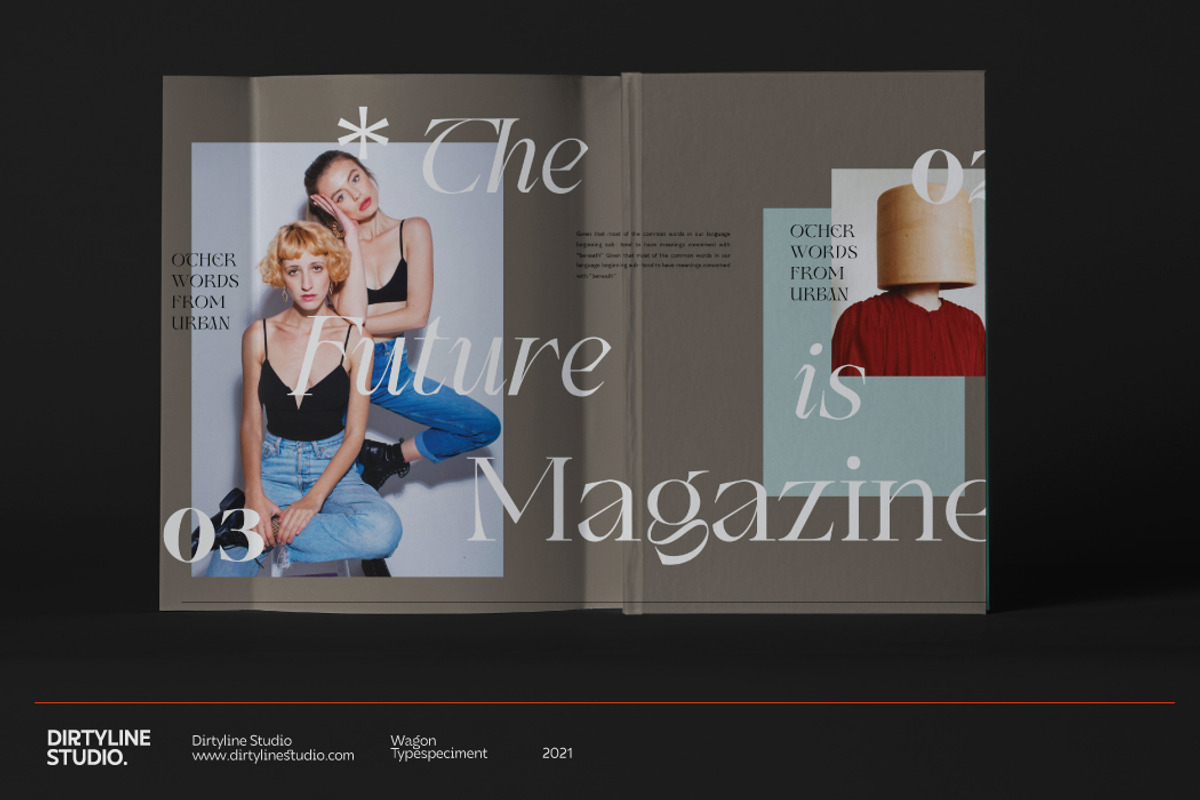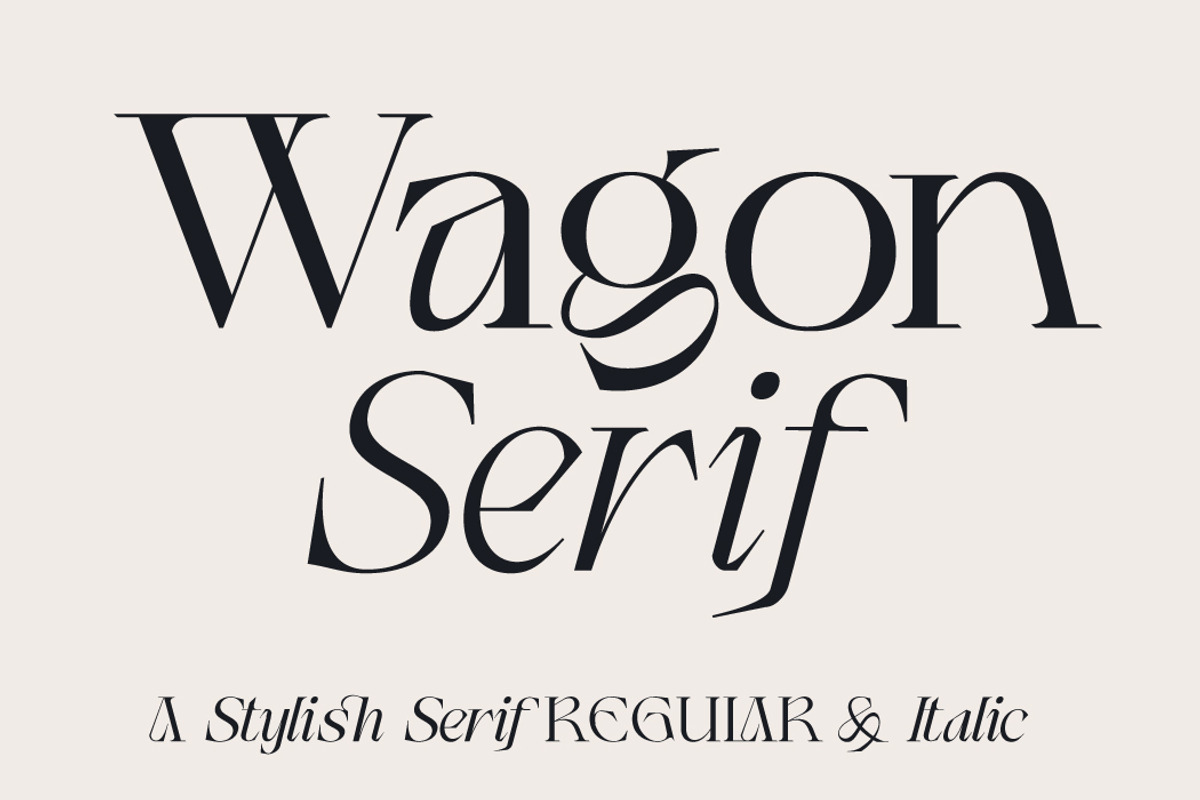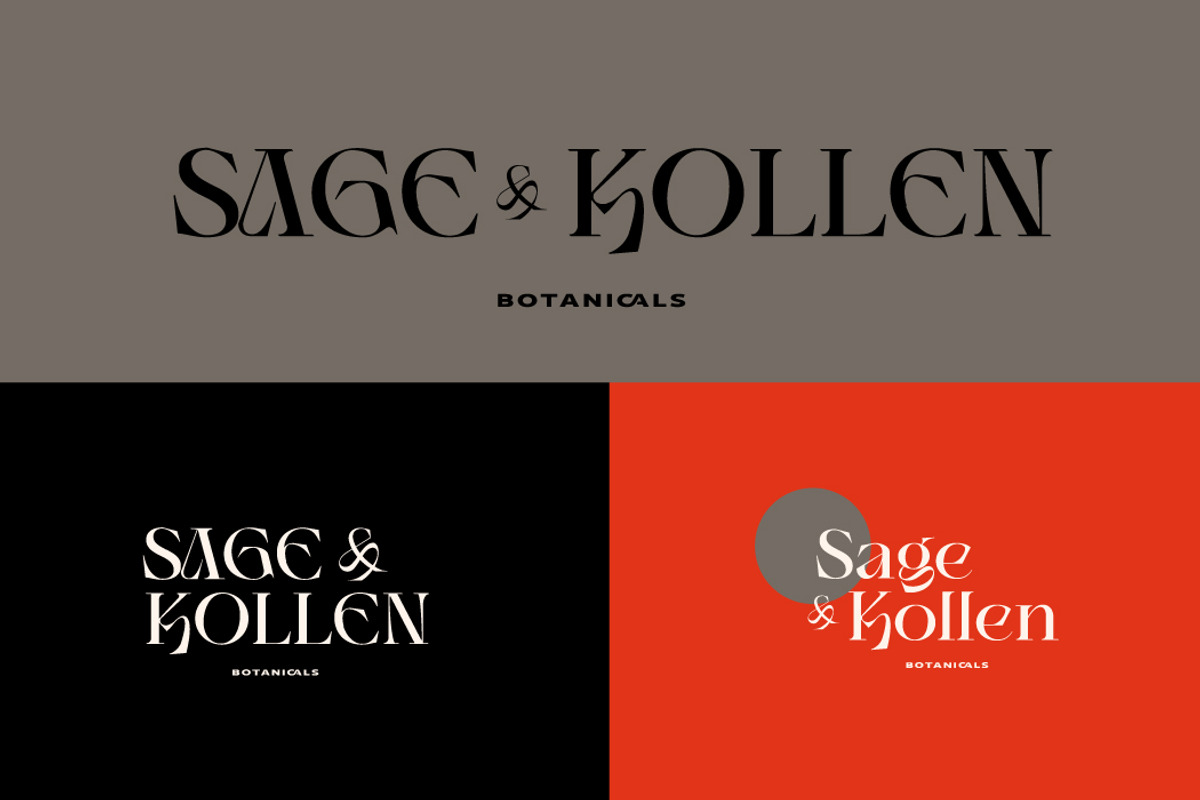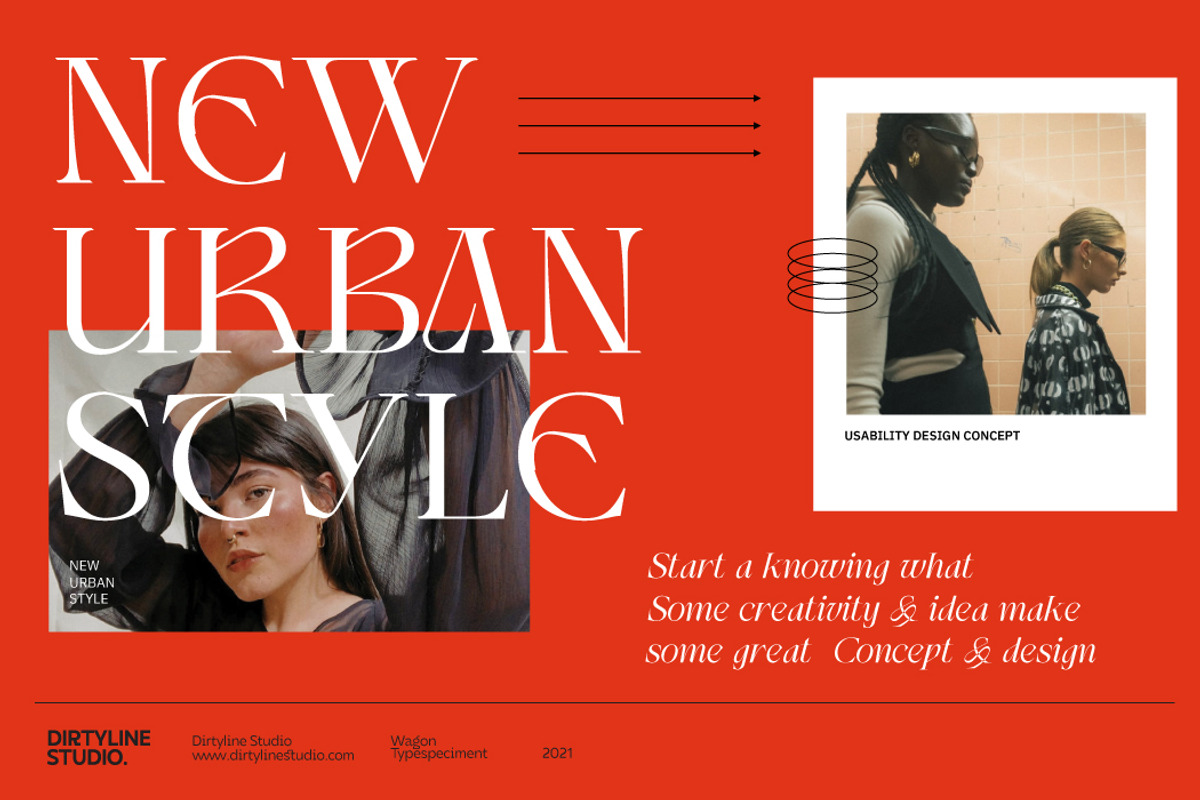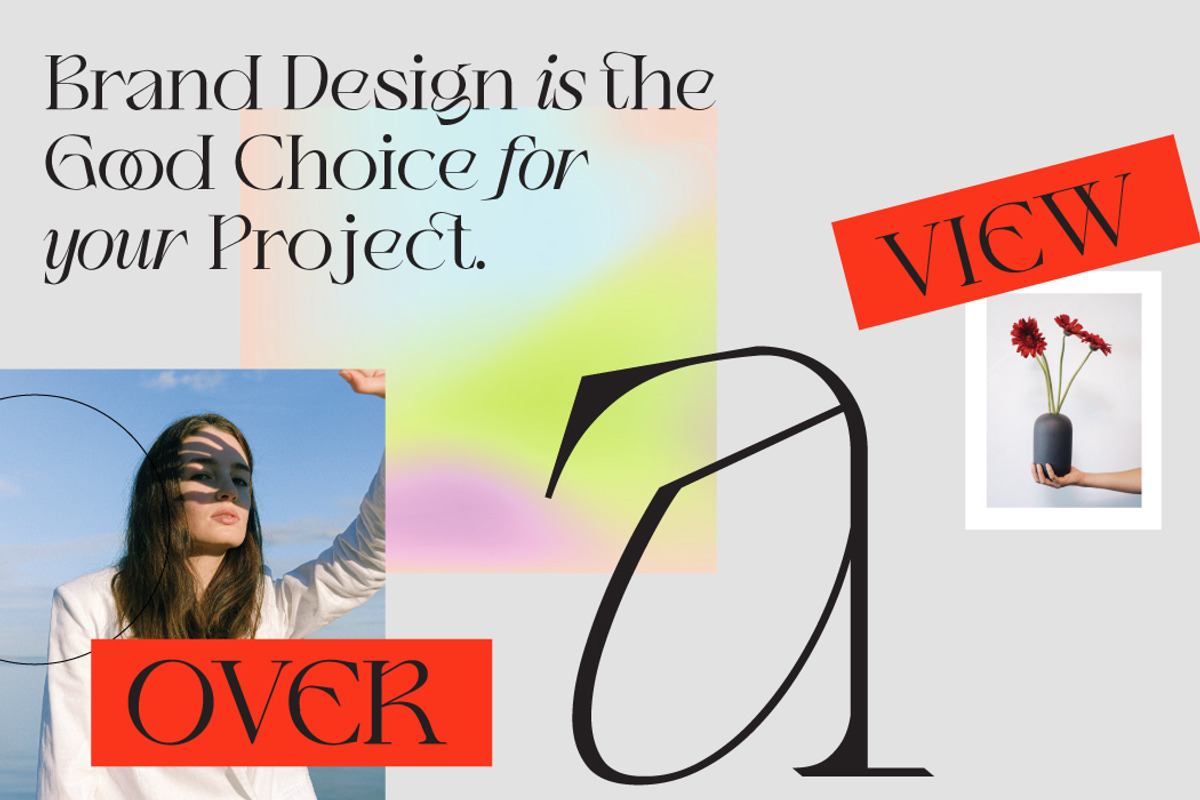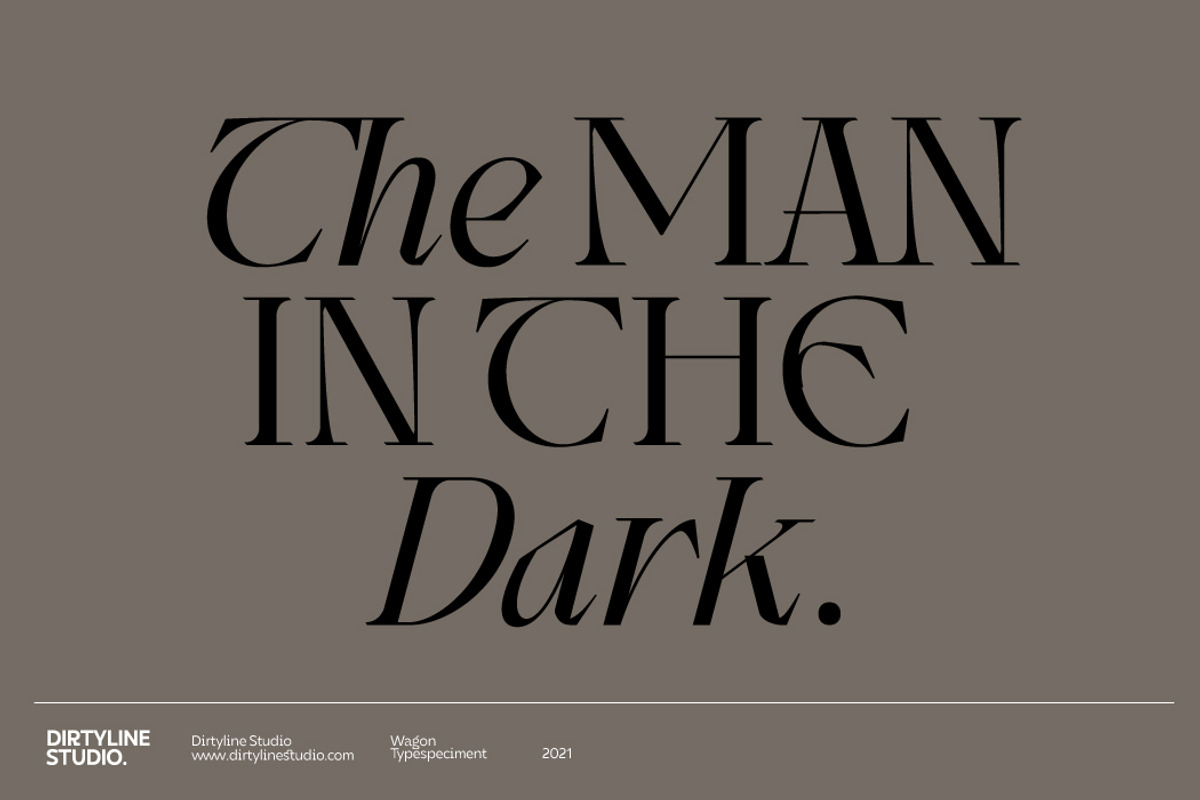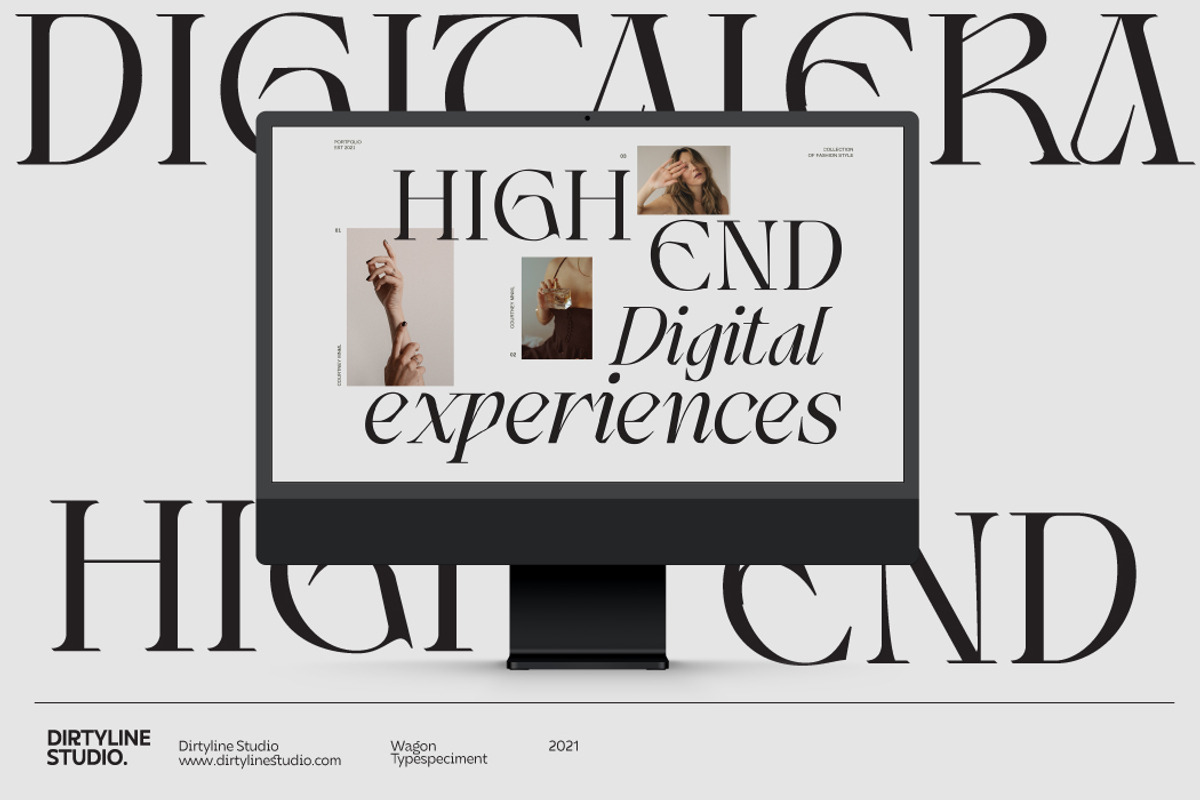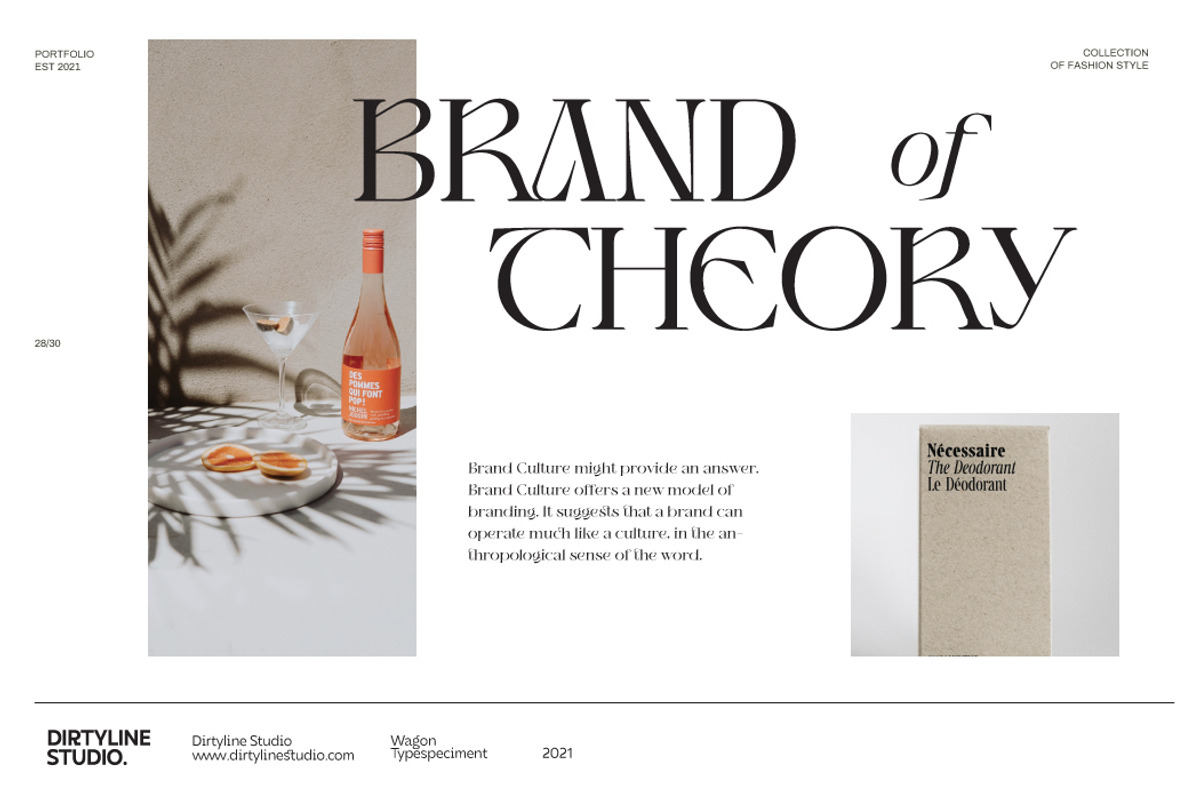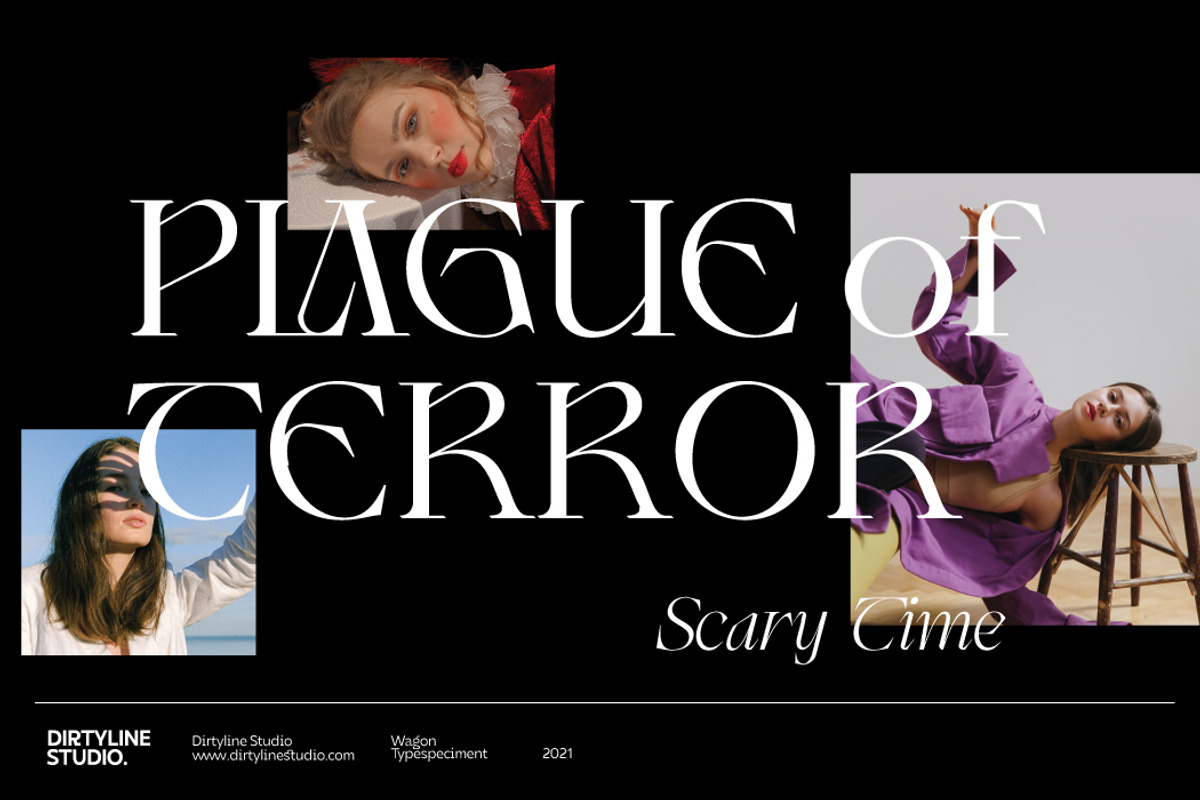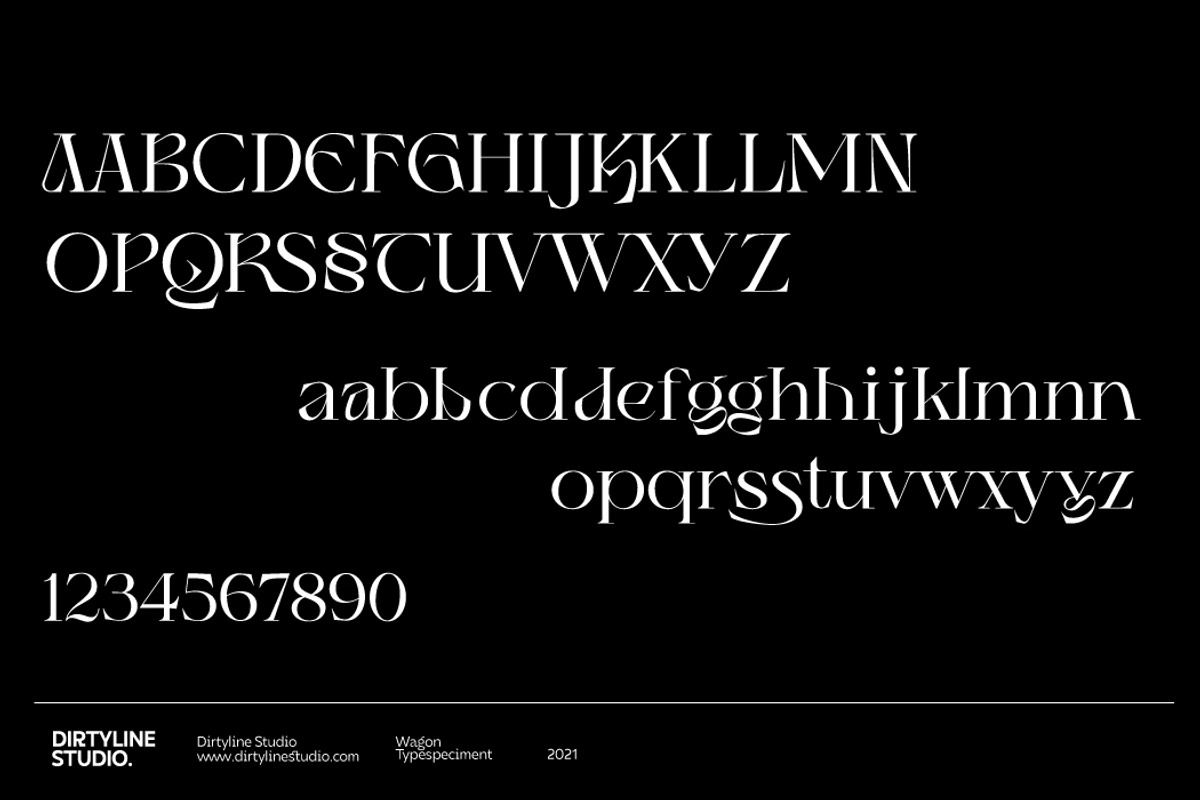
Wagon Display Serif+Italic
Wagon a new fresh & modern serif with a strong style, a dancing baseline! So beautiful on invitations like greeting cards, branding materials, business cards, quotes, posters, and more!
Wagon Display Typeface is part of a strong and modern display family. This typeface is both impressive at display sizes and easily readable in text size, while the sharp shapes of the triangular serifs and the distinctive letter shapes show their strength in logo design and impressive editorial use.
Wagon comes with elegant style, strength, and contrasts, with features an extended Latin character set of 415 glyphs covering over 87 languages. Wagon is ready to be like a top model on the design catwalk, making your projects look classic but contemporary, finely tuned but assertive, and elegant as the best luxury fashion.